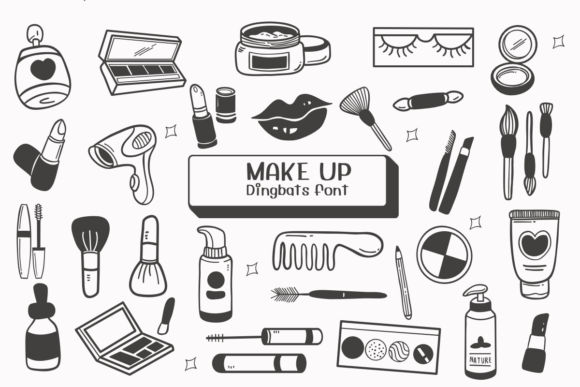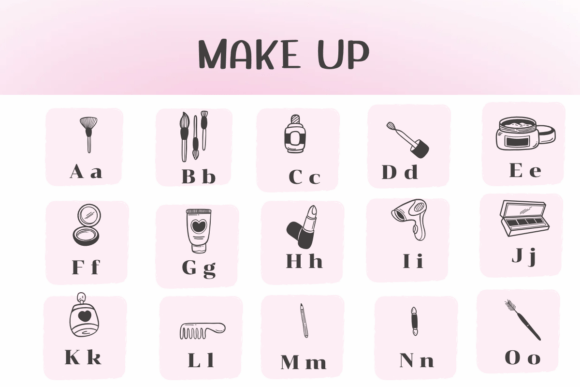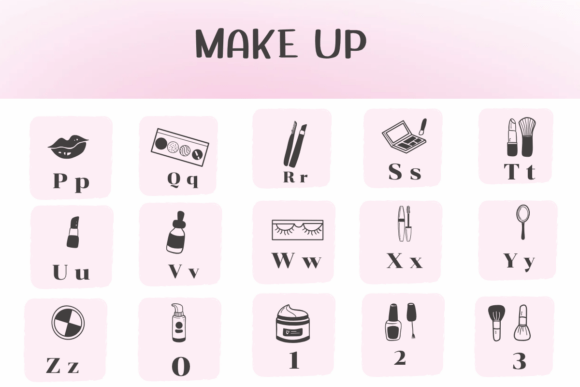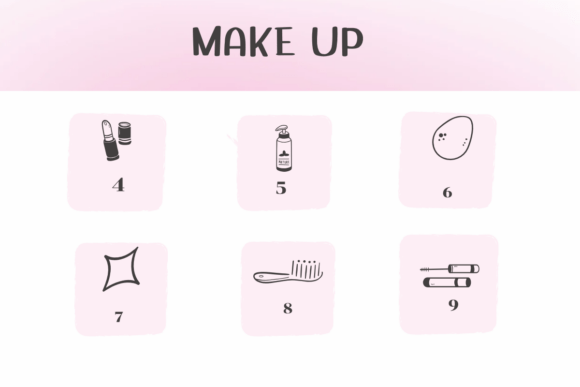
Make Up Font
About the Make Up Font
From logos to headlines, the Make Up Font is the perfect choice for making a lasting impression. MAKE UP is a dingbats font with a glamorous theme. This font can enhance your creative projects such as wedding invitations, DIY, crafts, decorations, logos, and many other creative ideas.
MAKE UP’s glamorous dingbat style excels in projects requiring a touch of playful sophistication. It’s ideal for logos, short headlines, wedding stationery, and packaging design where its decorative elements add visual interest. However, it’s less suitable for body text or UI elements due to its limited character set and decorative nature; extended use would be visually overwhelming.
Pair MAKE UP with a clean sans-serif like Helvetica Neue for a modern contrast, or a delicate serif like Garamond for a more classic and elegant feel. For a bolder look, consider pairing it with a geometric sans-serif such as Futura. These pairings provide readability and balance, allowing MAKE UP’s embellishments to shine without overpowering the design.
The overall personality of MAKE UP is undeniably glamorous and fun, yet refined. It suits brands and projects aiming for a sophisticated yet lighthearted aesthetic, particularly those in the beauty, fashion, or wedding industries.
Make Up Font Usage Examples
Make Up Font Example